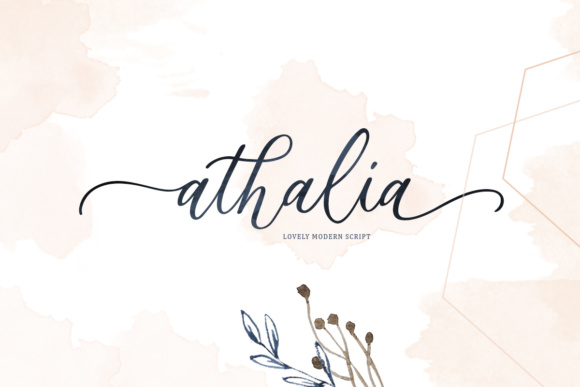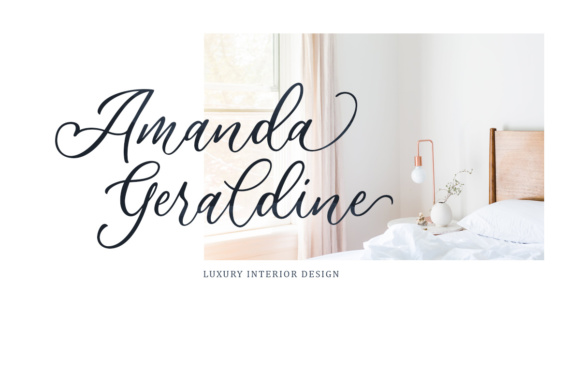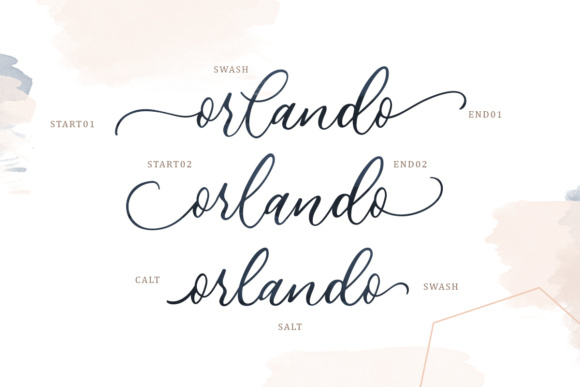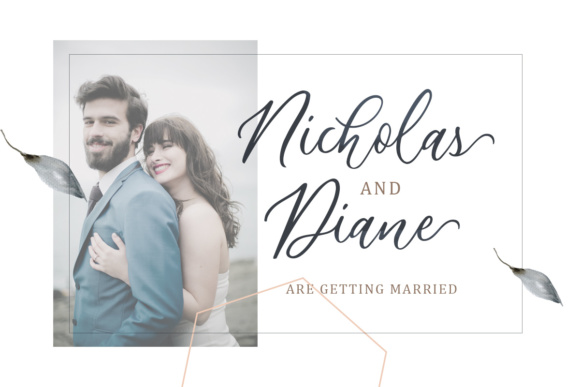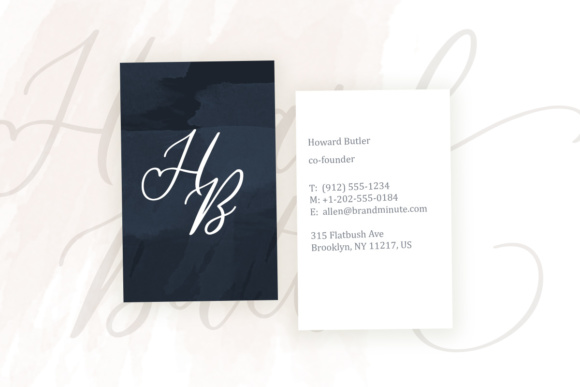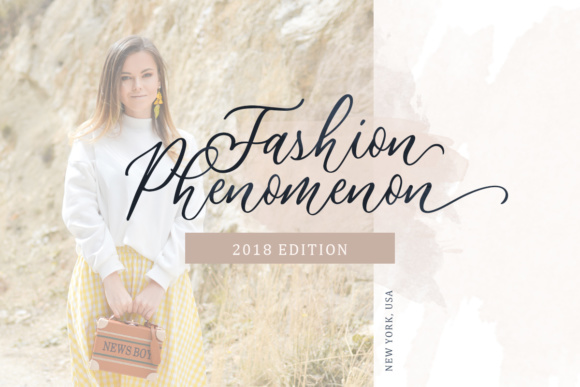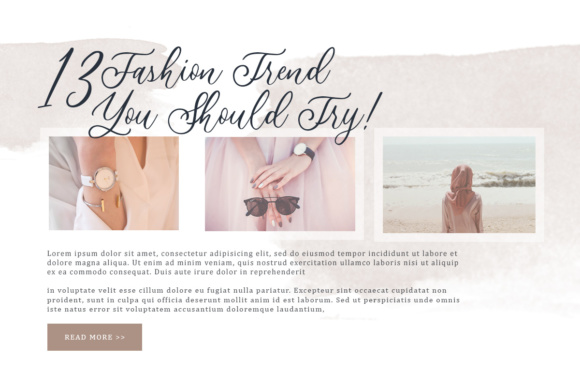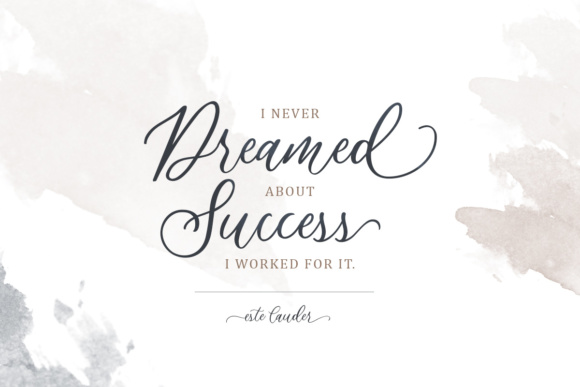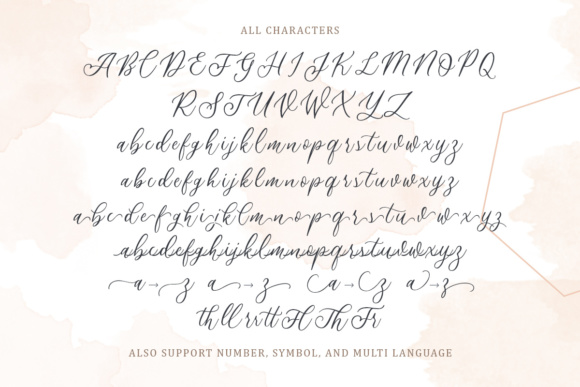
Athalia Script Font
About Athalia Script Font
Athalia is a lovely modern script which will give your design a luxury feeling. The natural hand writing script is suitable for anyone who needs a typeface for headlines, invitations, branding, packaging, advertising and much more!